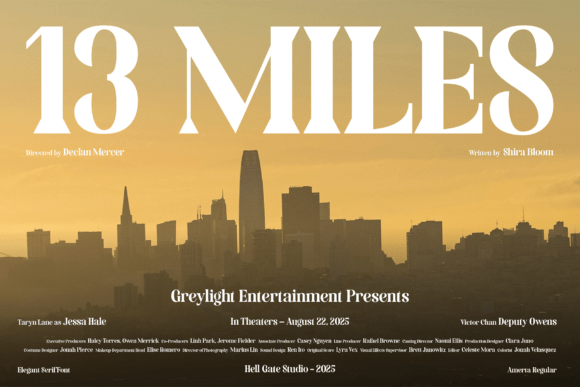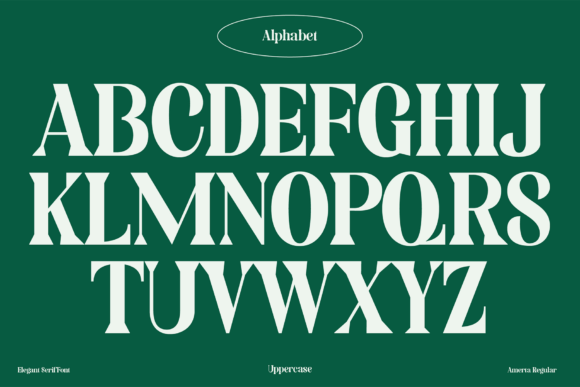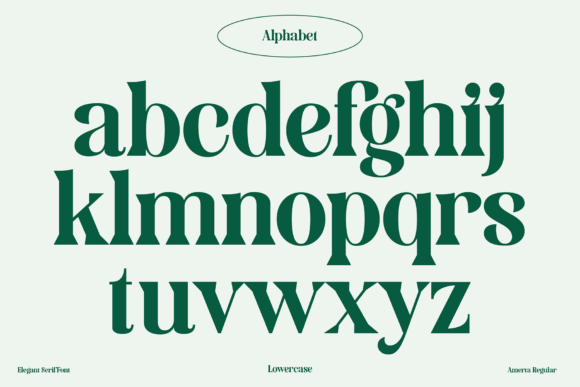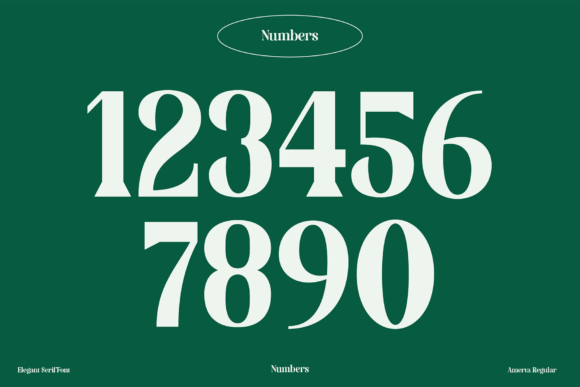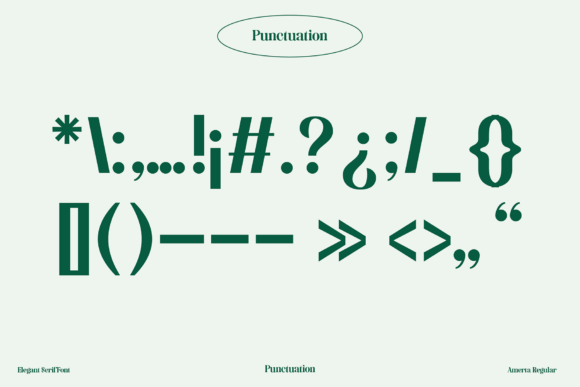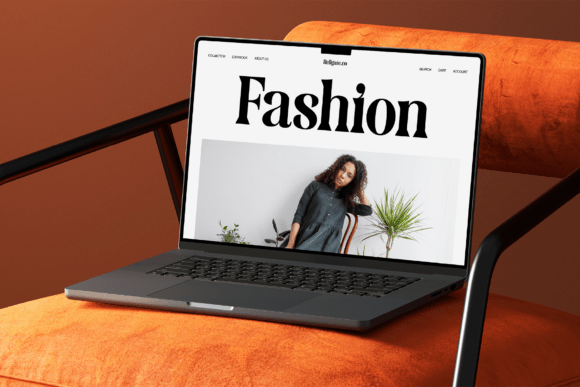
Introducing Amerta Font: Elevate Your Design with Elegance and Versatility
In the world of typography, finding the perfect font that combines elegance, versatility, and sophistication can be a daunting task. However, for designers and crafters looking to elevate their projects, Amerta Font is here to revolutionize the way you approach typography. This unique typeface is not just a font; it’s an experience that brings a touch of refinement and luxury to any theme, making it remarkably convenient to modify in terms of both text and color.
The Perfect Blend of Elegance and Versatility
Amerta Font stands out in the crowded world of typography due to its perfect blend of elegance and versatility. Its design is meticulously crafted to cater to a wide range of projects, from sophisticated editorials and high-end branding to creative crafts and digital media. Whether you’re working on a luxury brand campaign, a wedding invitation, or a personal blog, Amerta Font adapts seamlessly, adding a layer of sophistication that is hard to achieve with standard typefaces.
Convenience in Customization
One of the key advantages of Amerta Font is its remarkable convenience in customization. Designers and crafters can easily modify the text to fit their project’s specific needs. Whether it’s adjusting the font size, experimenting with different weights, or playing around with letter spacing, Amerta Font offers a high degree of flexibility. Moreover, its compatibility with various color schemes allows for endless creativity, enabling designers to match the font perfectly with their brand’s aesthetic or project’s theme.
High-Quality Rendering for Crisp Visuals
Amerta Font is designed with high-quality rendering in mind, ensuring that it looks crisp and clear across different devices and screen resolutions. This feature is particularly beneficial in today’s digital age, where content is consumed on a variety of platforms. The clear visual effect of Amerta Font enhances readability, making it an excellent choice for both digital and print media. Whether your audience is viewing your content on a high-resolution monitor or a mobile device, Amerta Font delivers a superior visual experience.
Why Choose Amerta Font?
So, why should designers and crafters choose Amerta Font for their projects? Here are a few compelling reasons:
- Elegance and Sophistication: Amerta Font brings an unmatched level of elegance and sophistication to any project, setting it apart from more conventional typefaces.
- Versatility: Its versatile design makes it suitable for a wide range of applications, from luxury branding to personal crafts.
- Customization: Easily modify the text and color to match your project’s specific needs, offering a high degree of creative freedom.
- High-Quality Rendering: Enjoy crisp, clear visuals across different devices and platforms, enhancing the overall readability and aesthetic of your content.
Amerta Font is more than just a typeface; it’s a design statement that speaks of elegance, versatility, and sophistication. Its unique blend of refinement and convenience makes it an invaluable asset for designers and crafters looking to elevate their projects. With its high-quality rendering and ease of customization, Amerta Font is poised to become a go-to choice for anyone looking to make a lasting impression through their work. Whether you’re embarking on a new design project or looking to refresh your brand’s visual identity, Amerta Font is an excellent choice that promises to deliver results that are both visually stunning and highly effective.